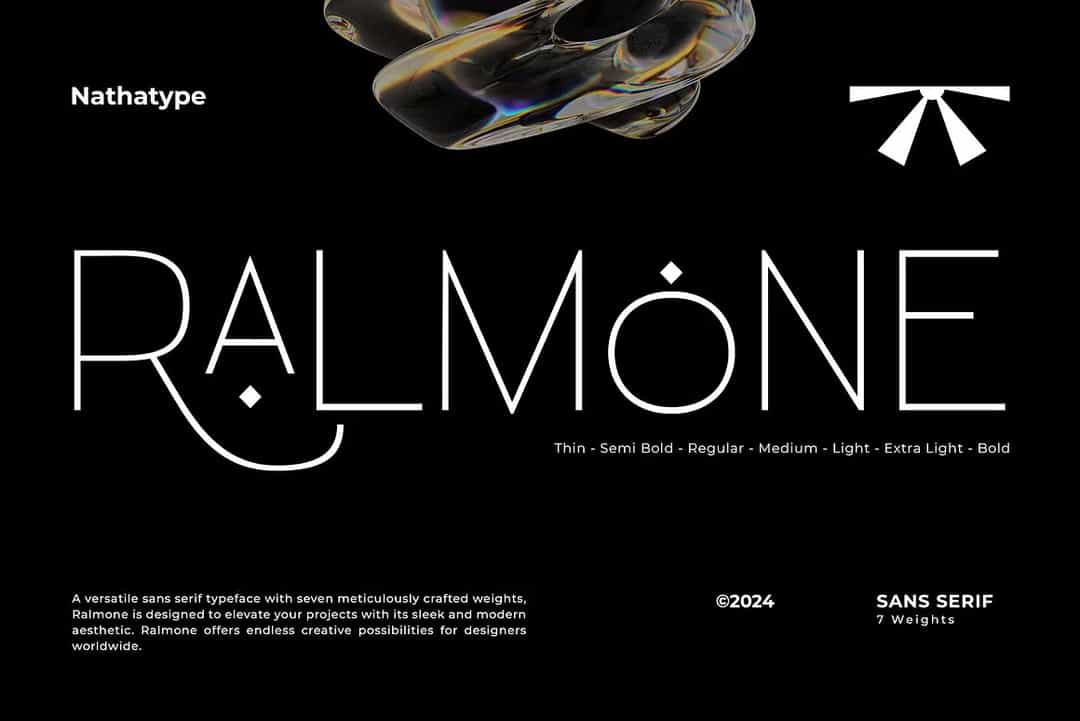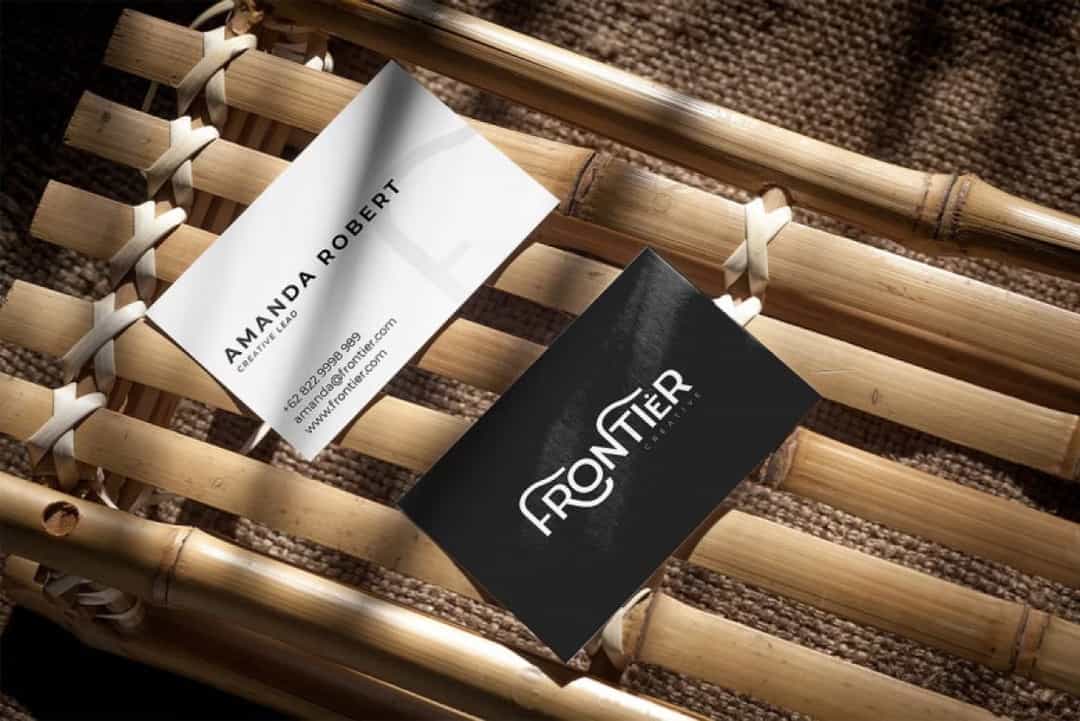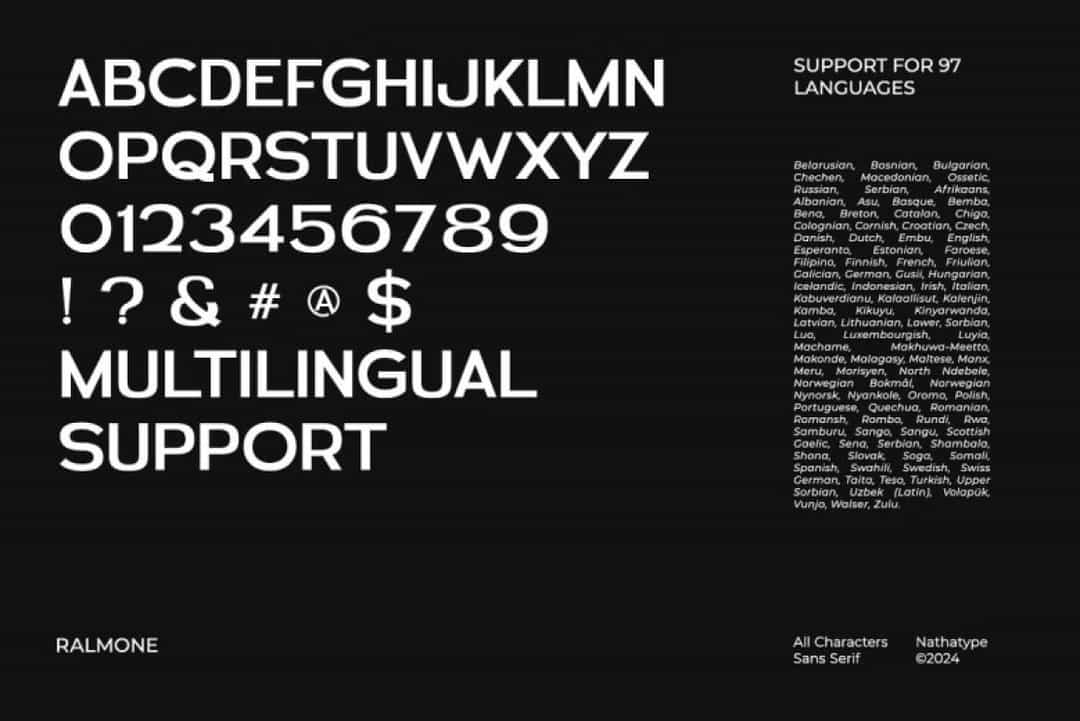
Ralmone can be described as an adaptable sans serif font designed to offer designers an abundance of typographic possibilities. Crafted exclusively in uppercase letters, Ralmone conveys modernity and power with seven weight options available ranging from Thin to Bold that allow designers the freedom to craft striking compositions.